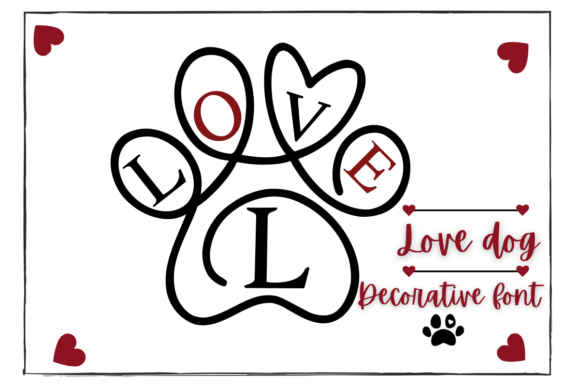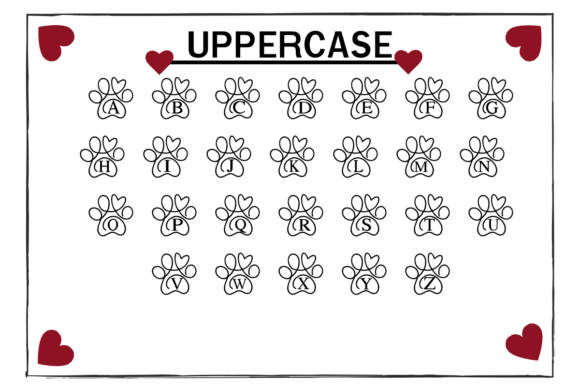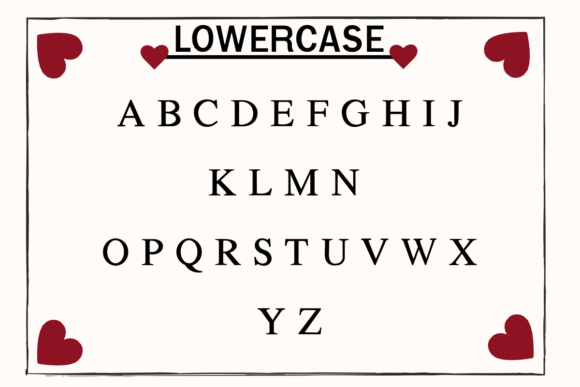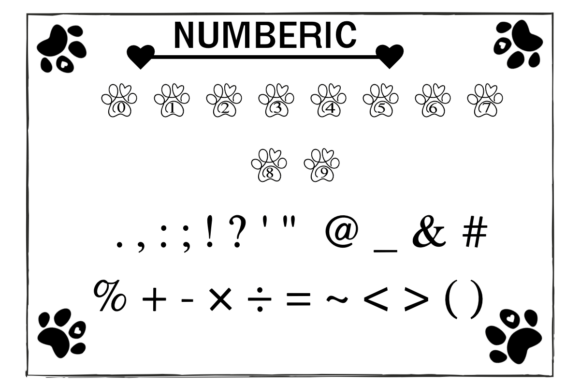
Love Dog Font
About the Love Dog Font
Unleash your creativity with Love Dog Font, a versatile font perfect for a wide range of applications. Love Dog is a charming decorative font featuring adorable paw prints with embedded letters. Perfect for jotting down notes, journaling, or crafting greeting cards, it also works beautifully for a variety of other designs. Use it to create banners, mugs, shirts, stationery, social media posts, and more!
Love Dog’s playful charm makes it ideal for projects targeting children, pet-related businesses, or brands emphasizing a friendly, approachable aesthetic. It excels in headlines, short-form text on packaging, social media graphics, and playful branding elements. However, its decorative nature makes it less suitable for body text or UI elements where readability is paramount. Avoid using it for long paragraphs or situations requiring high legibility.
Pair Love Dog with a clean sans-serif like Open Sans for a balanced contrast, or a classic serif font such as Garamond for a more sophisticated feel. For a more whimsical effect, consider pairing it with a playful script font, but ensure sufficient contrast for readability.
The font’s overall personality is undeniably cheerful and approachable, making it a strong choice for projects aiming for a lighthearted and engaging tone.
Love Dog Font Usage Examples
Love Dog Font Example